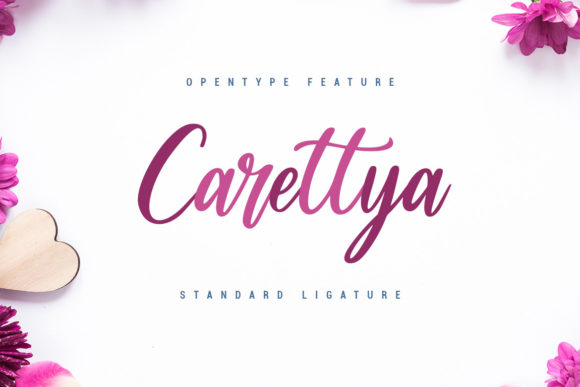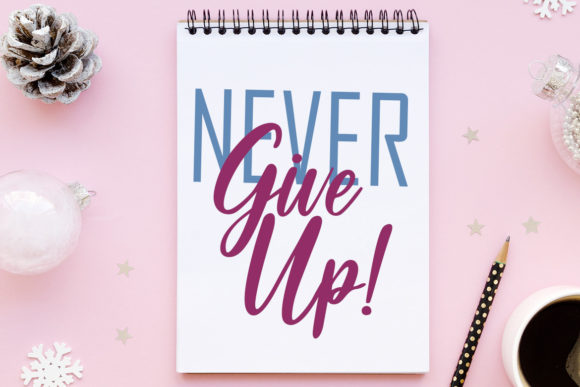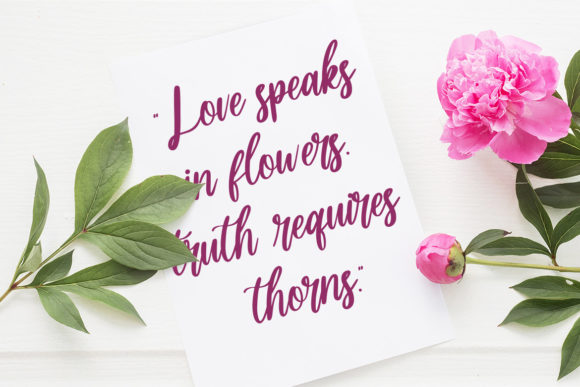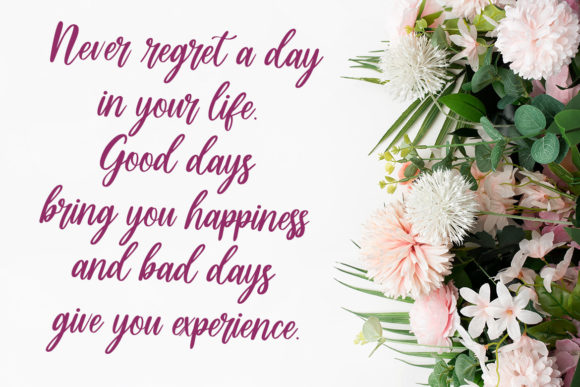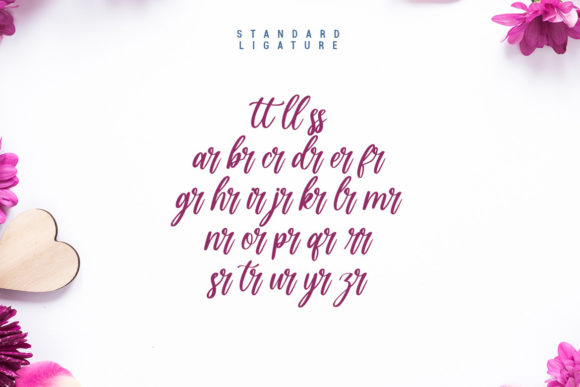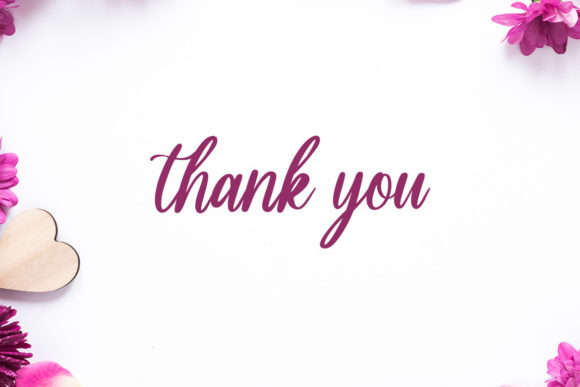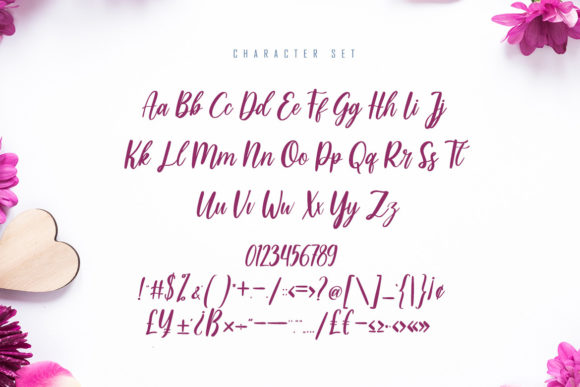
Alaska Font
About Alaska Font
Alaska is a lovely script font featuring charming, playful characters that seem to dance along the baseline. This font is PUA encoded which means you can access all of the amazing glyphs and ligatures with ease!